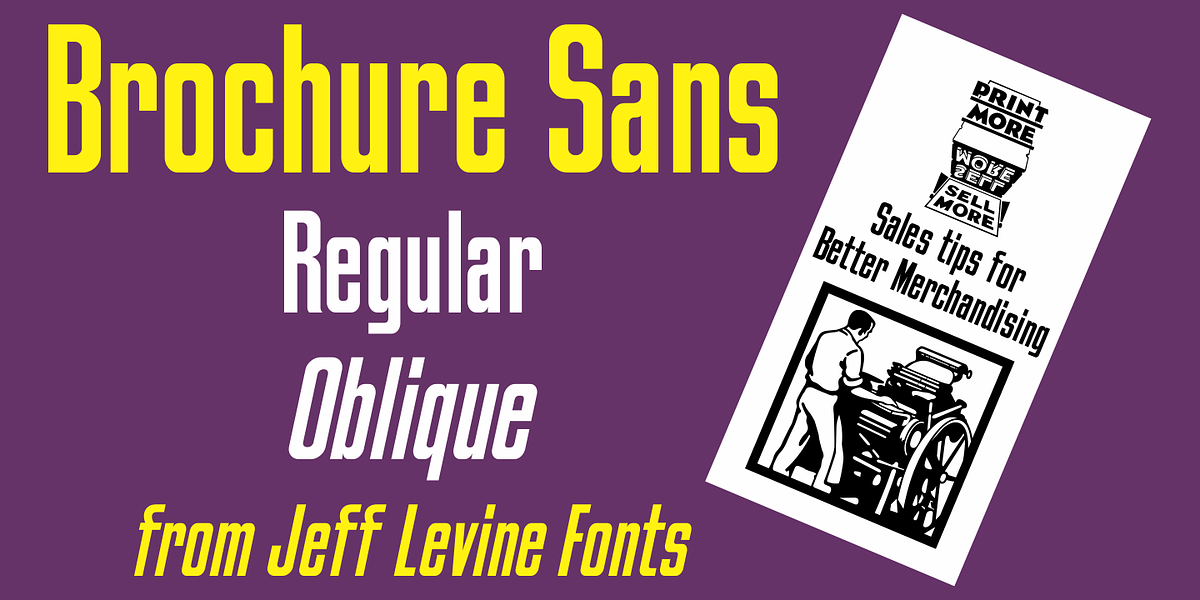
Brochure Sans JNL Font Free Download is a clean and classic sans serif typeface inspired by vintage print advertisements and promotional brochures. With its straightforward design and subtle retro charm, this font is perfect for headlines, signage, packaging, logos, and branding projects that need a timeless, professional feel.
Its strong legibility and no-nonsense style make Brochure Sans JNL ideal for both print and digital applications. Whether you're working on a retro-inspired flyer or a modern layout with vintage roots, this font delivers clarity and character.